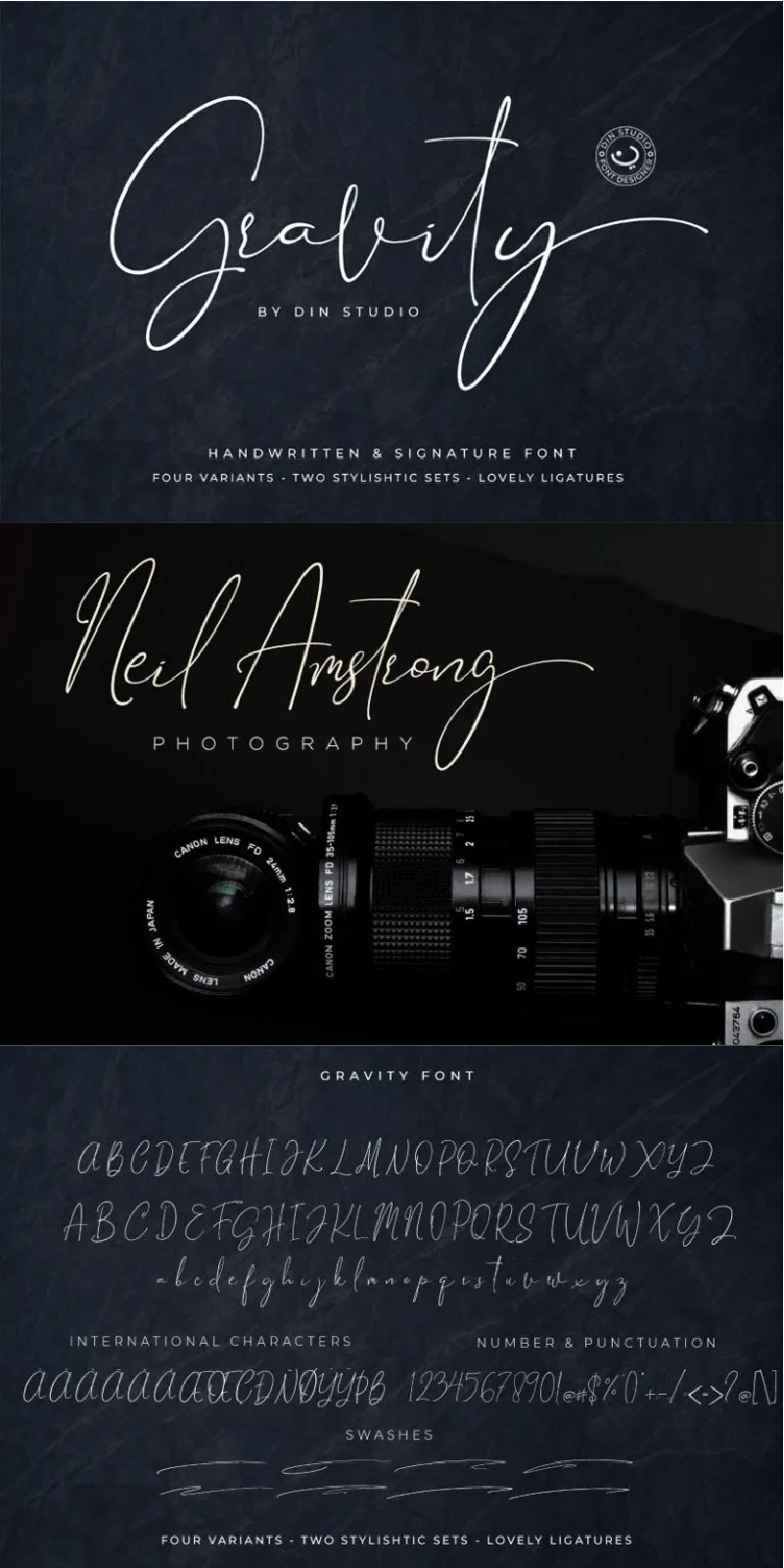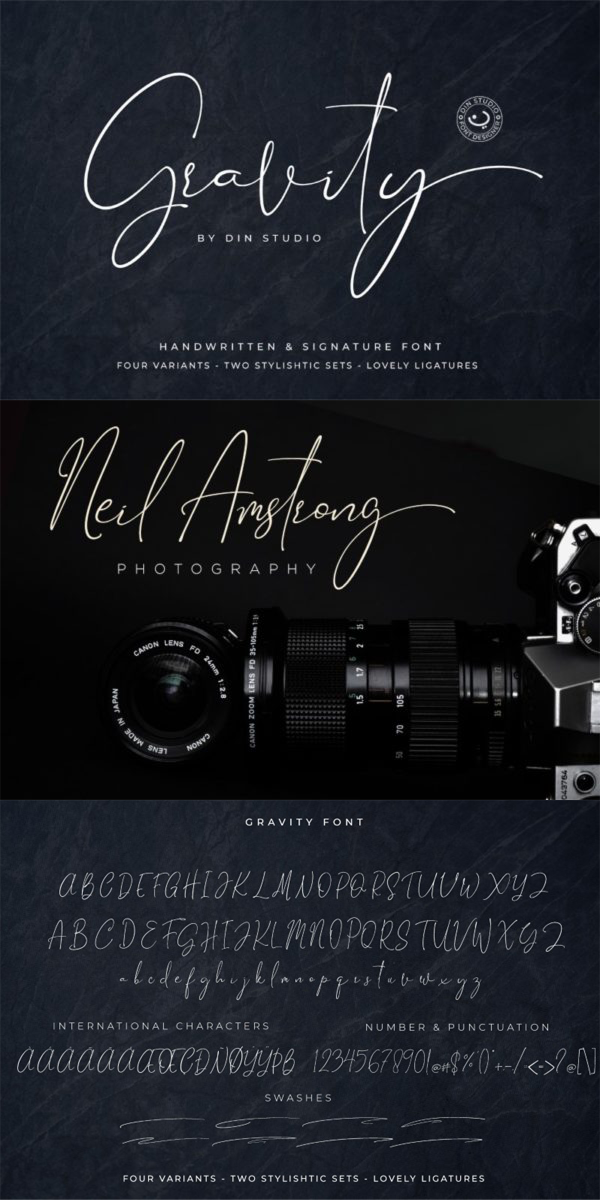
Gravity Font
About Gravity
Let’s welcome the Gravity Font, a luxury handwritten and signature style. This signature font is one of the Best Seller products of Din Studio. With four variants of styles, you can create more signatures and handwriting fonts you need. Gravity will be great for creating the perfect and unique designs of your branding projects, signatures, quotes, weddings, etc.
- Gravity 1 (inc. Swashes, Handwritten Stylish Set and Ligatures)
- Gravity 2 (inc. Handwritten Stylish Set, Slant Version and Ligatures)
- Gravity 3 (inc. Signature Stylish Set and Ligatures)
- Gravity 4 (inc. Signature Stylish Set, Slant Version and Ligatures)
- Uppercase and Lowercase letters
I- nternational Character Supports
Note: The swash can be used for another variant, but it must be accessed from Gravity Font 1.